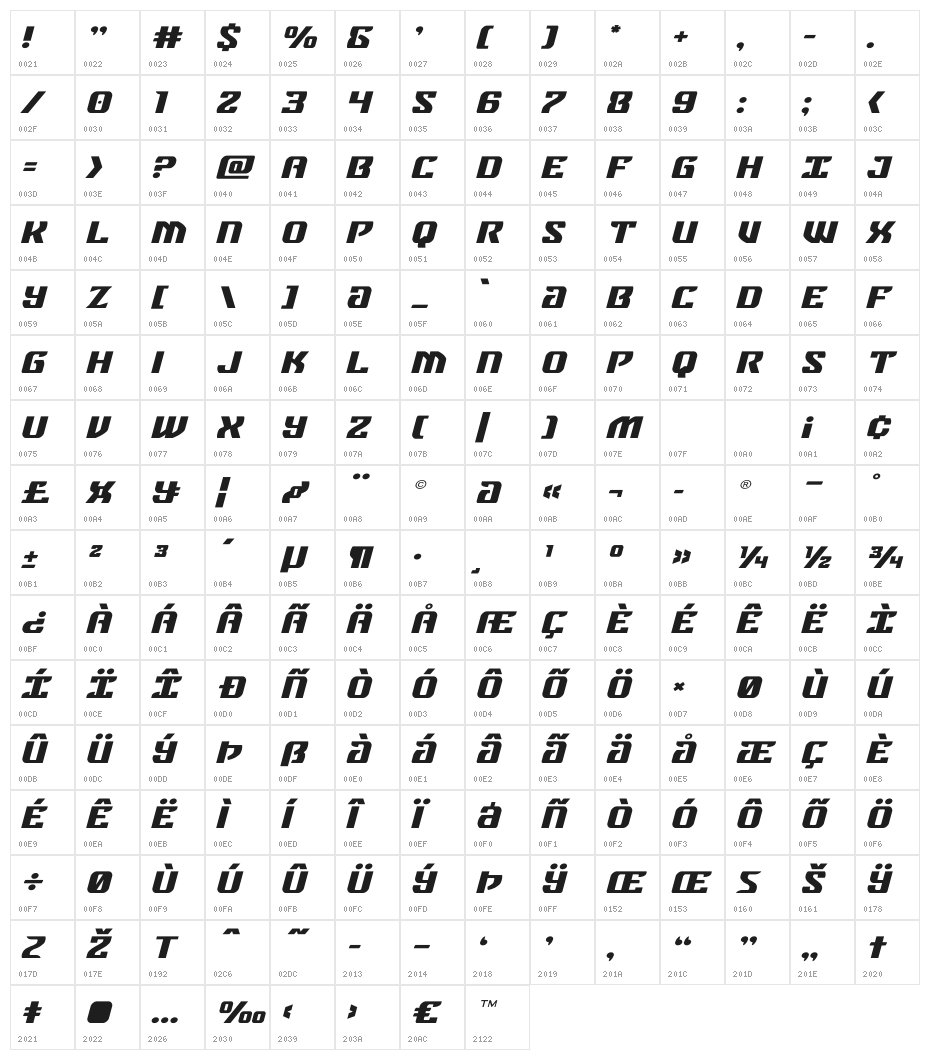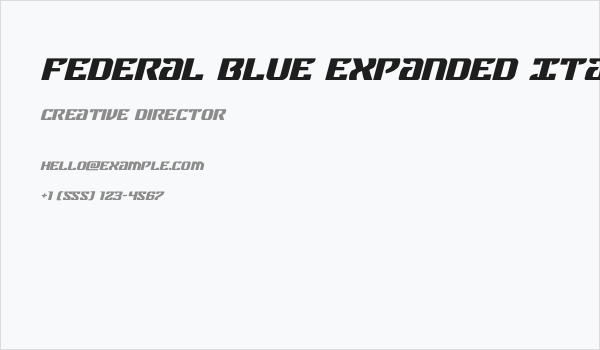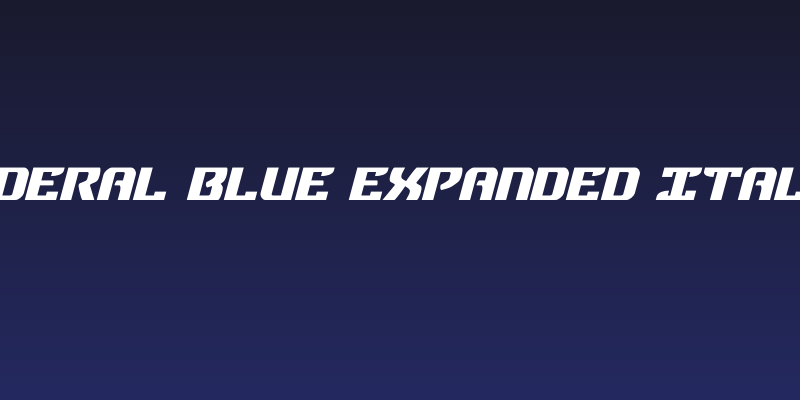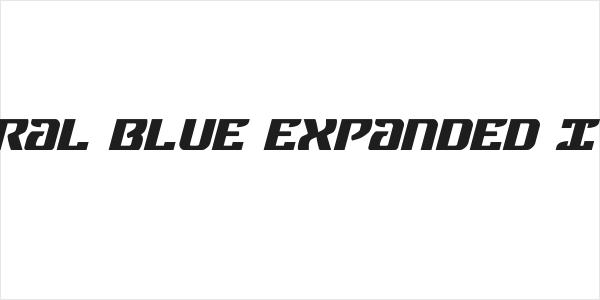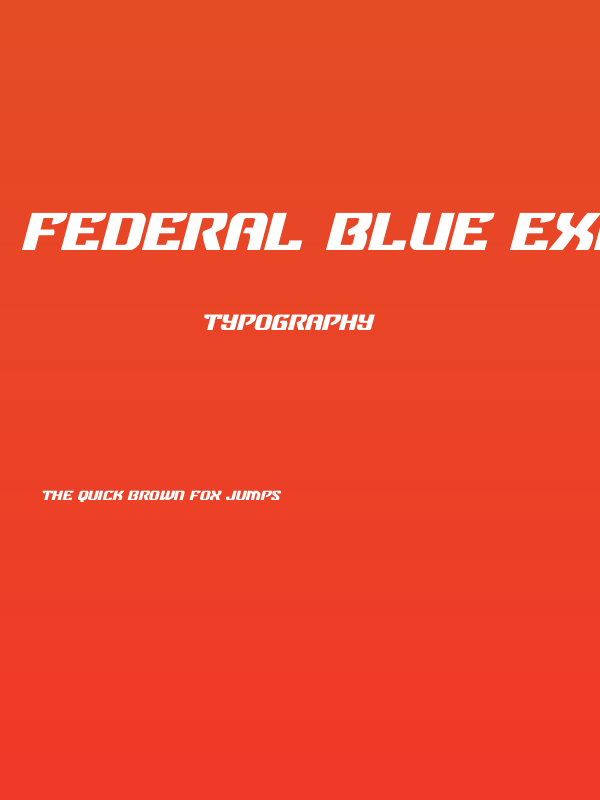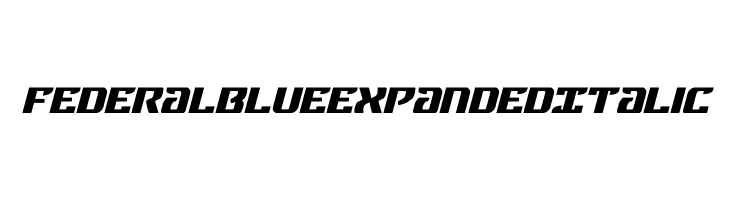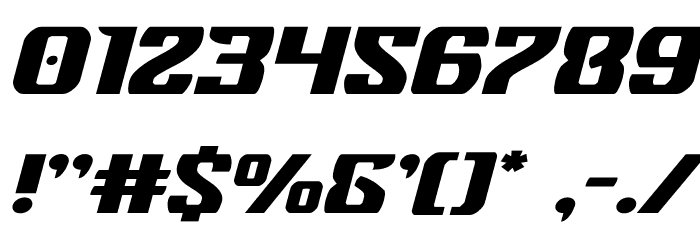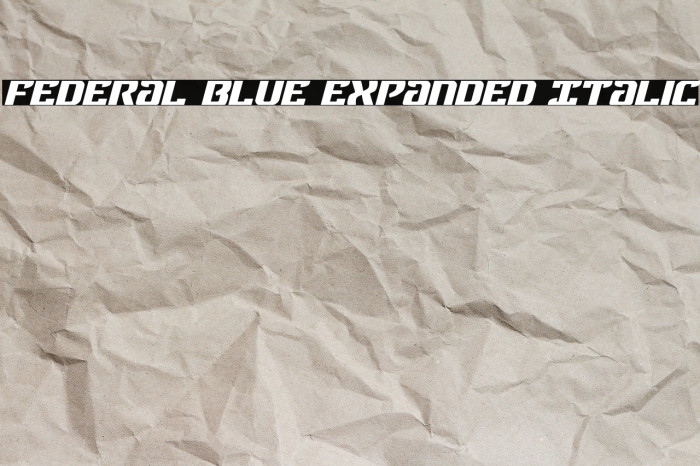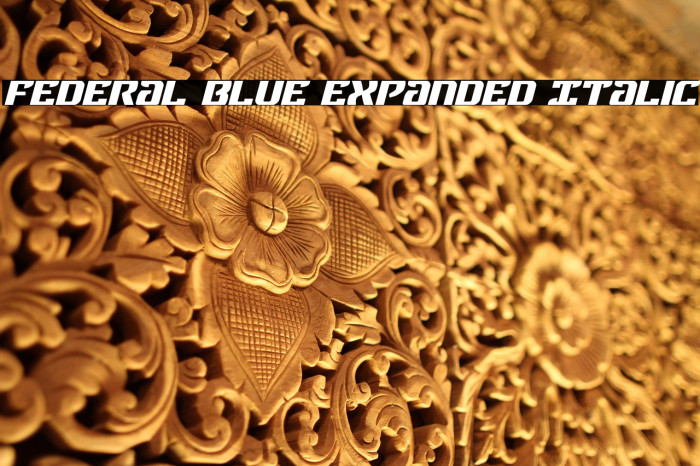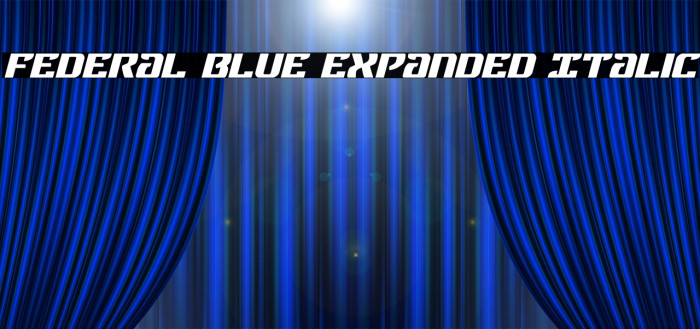
Federal Blue Expanded Italic Font
This font exhibits a bold and dynamic style with an expanded width and italic slant, giving it a sense of movement and energy. The characters are robust and angular, featuring sharp edges and a geometric structure that enhances readability while maintaining a unique visual appeal. The uppercase and lowercase letters are consistent in style, with a slight forward tilt that adds to the font's dynamic nature. The numbers and special characters are designed to match the boldness and angularity of the letters, ensuring a cohesive look across all text elements. This font is ideal for projects that require a strong, impactful presence.
| Proposed Projects | Ideal for sports branding, dynamic posters, modern advertising, and impactful headlines. |